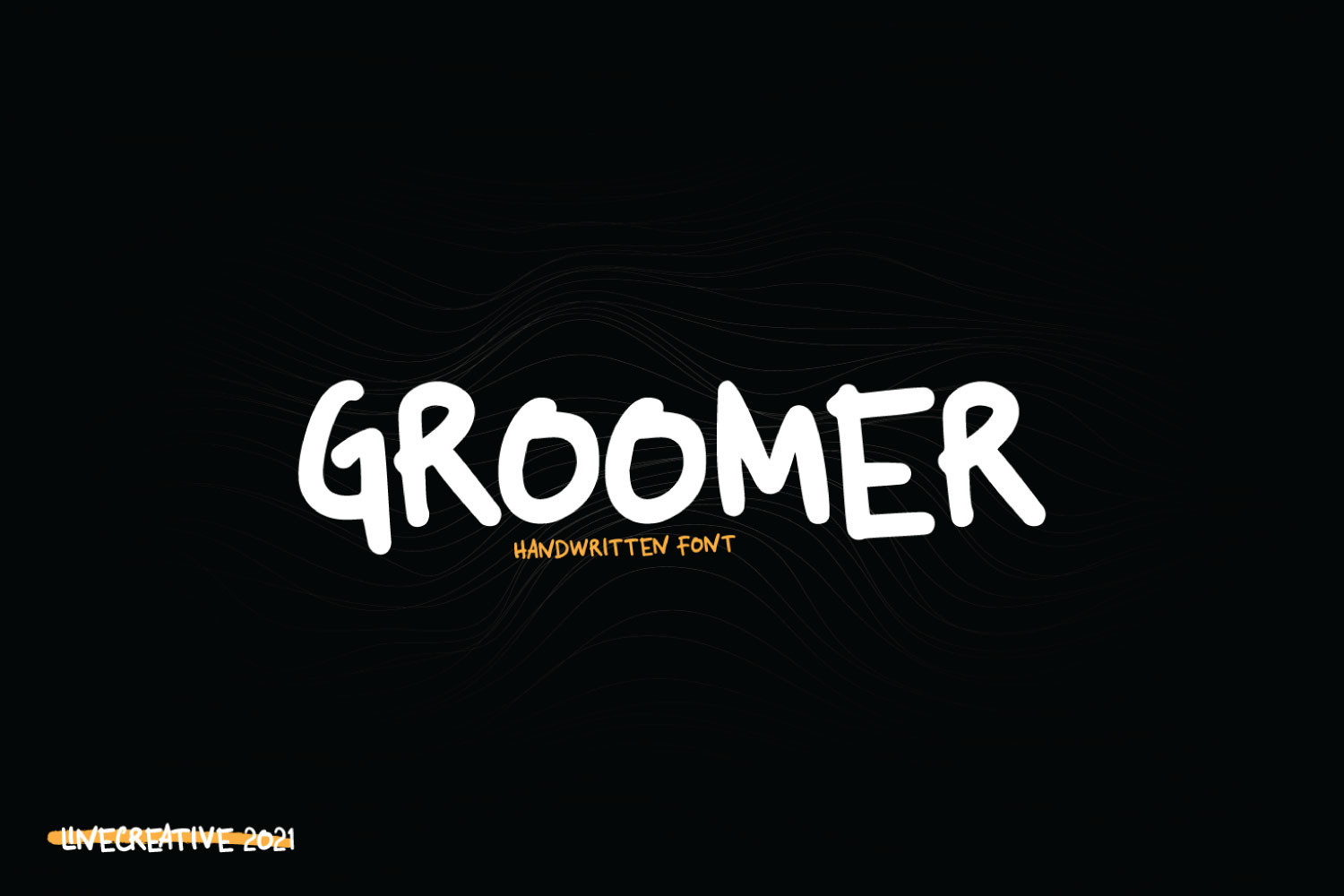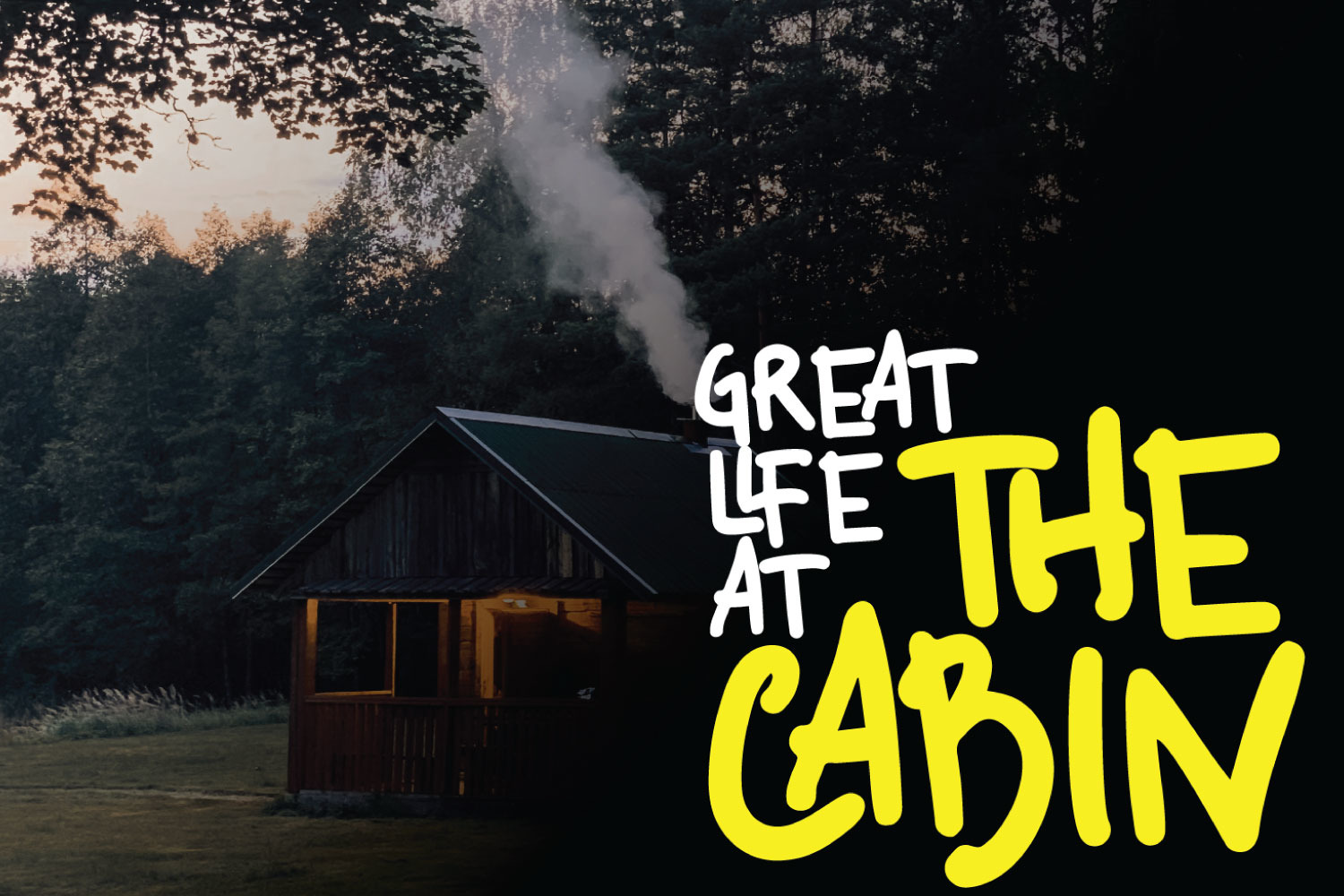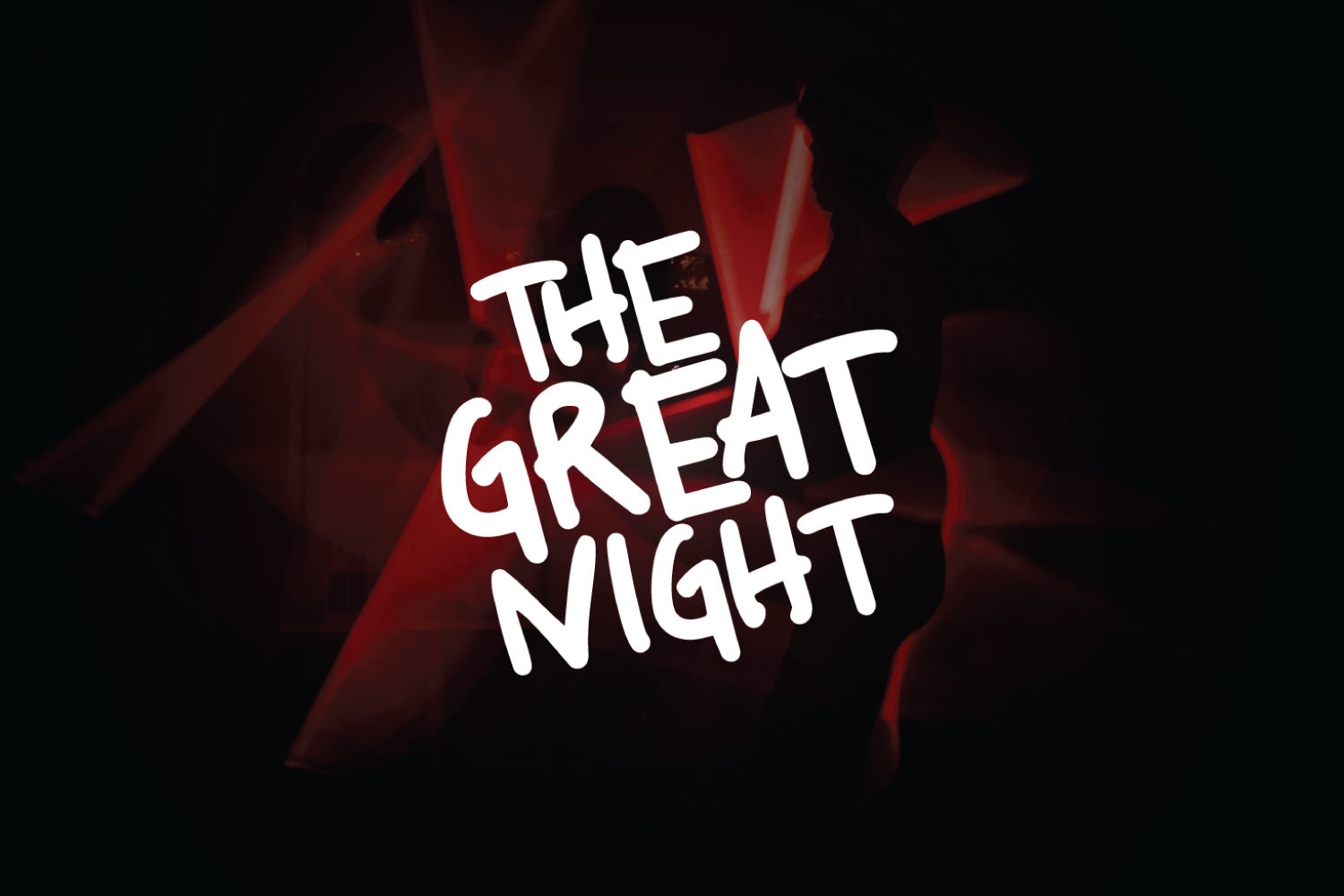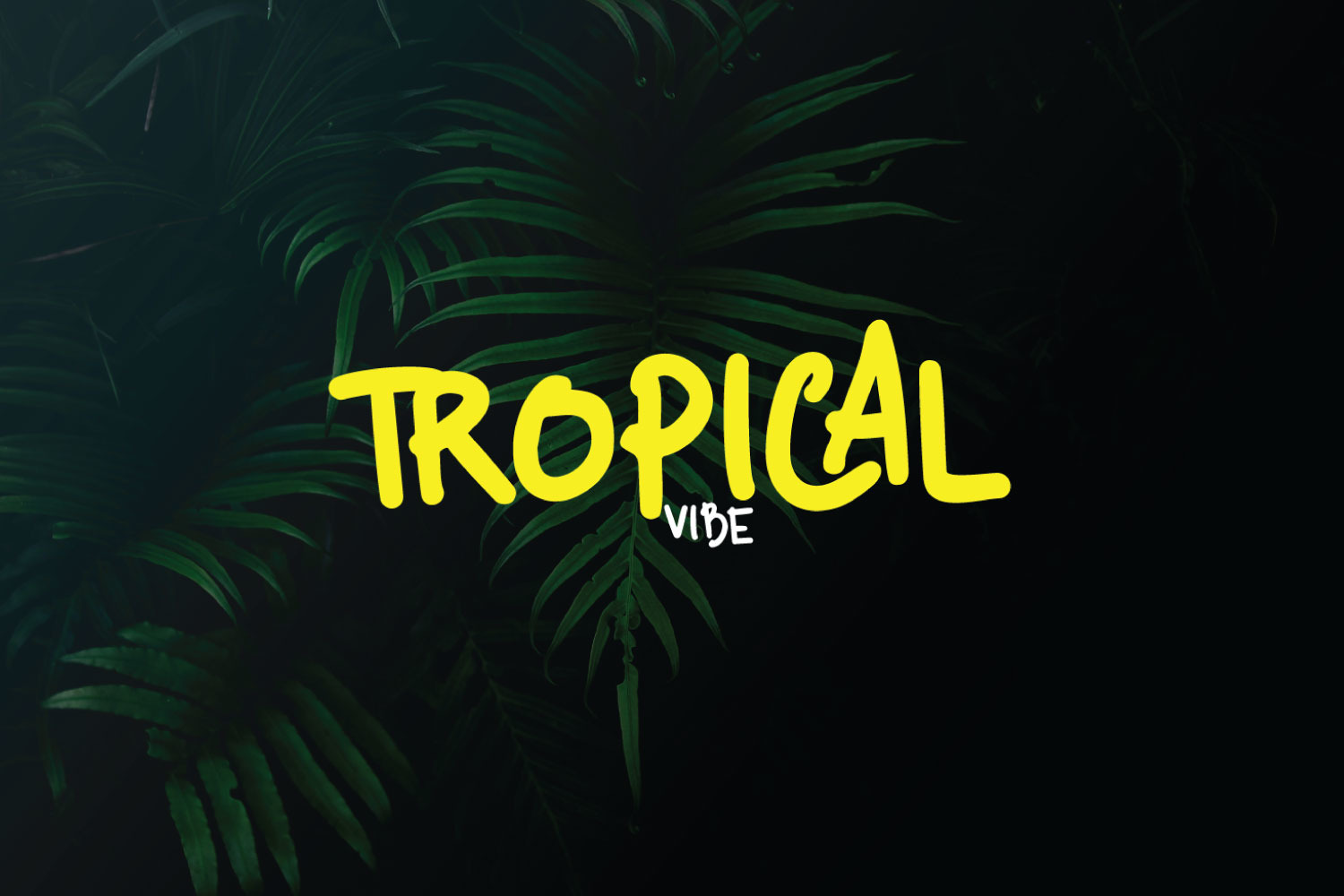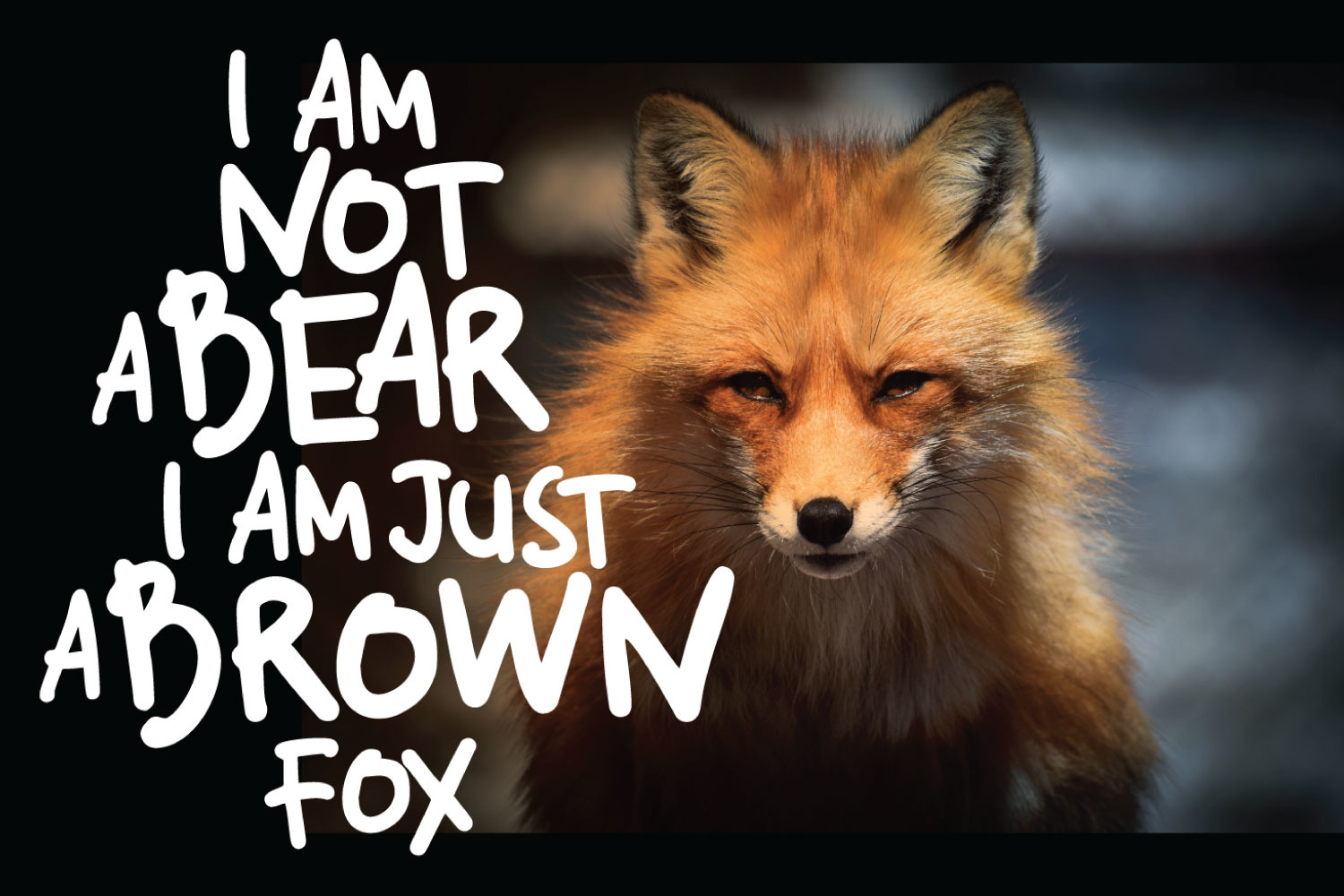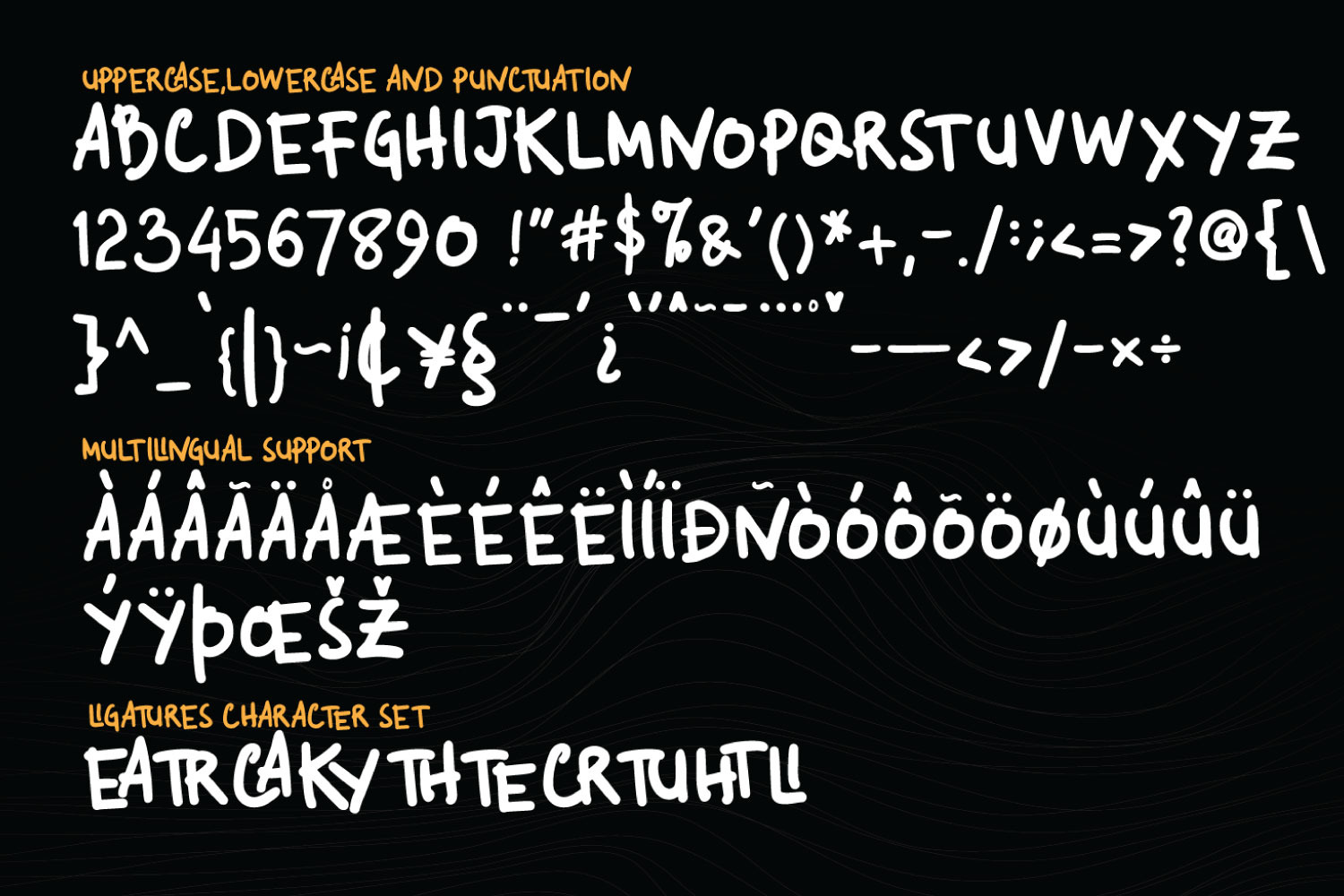
Groomer Font
Groomer is handwritten font give your designs an authentic handmade feel.
Groomer font is perfect for stationery, logos, social media or just about anything that needs that handwritten touch
-Groomer font including Upper & Lowercase characters(ALL CAPS),
-Ligatures Character
-Supports Multi linguage (Latin Western Europe), Numbers and Punctuation